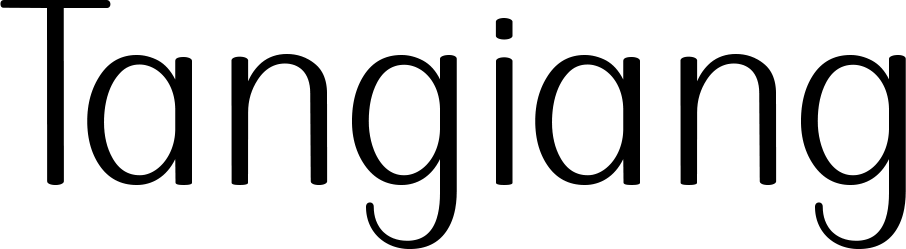
Tangiang Font
You can spark the interest of the audience by using a minimalist font such as Tangiang. It is designed with precision, delicacy, and softness, so this font is ideal for conveying a sense of friendship, modernity, professionalism, and royalty. Generally, it would be best to utilize it in magazines, social media posts, posters, logos, business cards, and gift cards.